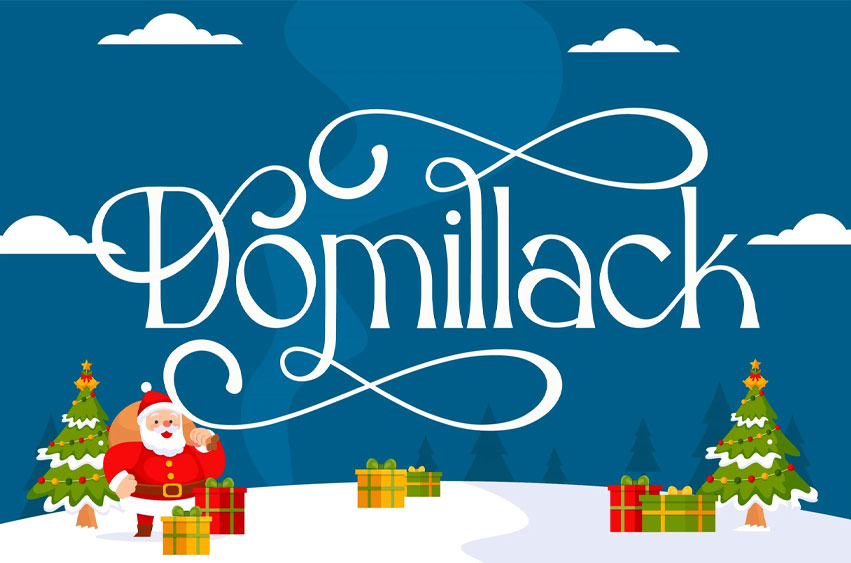
Domillack Font
Domillack Font Christmas Font, from Rishsketch Studios, is a premium Serif Christmas Font, perfect for any project that requires a distinctive, and premium feel.